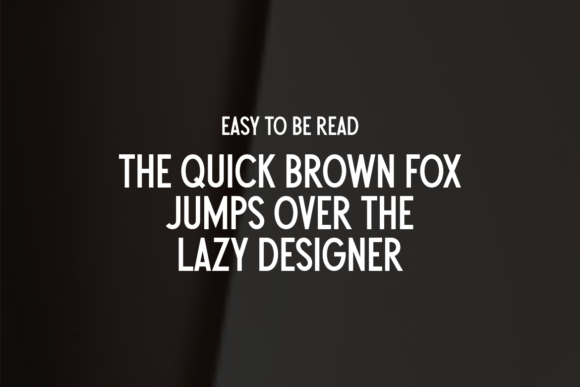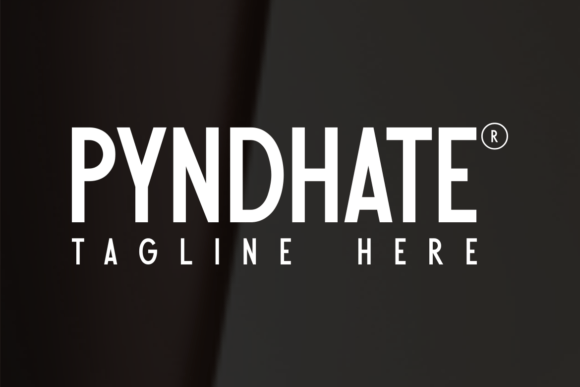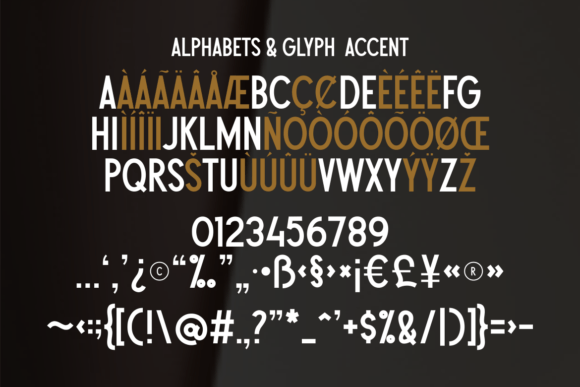
Discover the Timeless Elegance of Dacroghibz Font
Have you ever stared at a blank page, waiting for inspiration to strike? It’s a feeling familiar to many creatives, and it’s where the magic happens. One glance at a beautiful font can spark a design idea, and that’s exactly what happened when I discovered the Dacroghibz Font.
This stunning sans serif font exudes a sense of modernity and sophistication, making it the perfect addition to any design project. Whether you’re creating a book cover, a magazine spread, or a social media post, Dacroghibz Font is sure to elevate your design to the next level. Its minimalist and clean vibe lends itself perfectly to a wide range of applications, from invitations to editorial content.
- Unique Characteristics: Features a unique blend of modern and vintage elements, with intricate details and textures
Dacroghibz Font Review
I’ve had the chance to work with Dacroghibz Font, and I must say it’s an interesting choice for designers looking for a unique aesthetic. ✨ The font’s intricate details and dynamic feel make it perfect for creative projects that require a touch of playfulness. The bold lines and geometric shapes give it a modern, edgy vibe that’s sure to grab attention.
Here are some of the font’s strengths:
- ✨ Unique design that stands out from the crowd
- ✨ Perfect for creative projects that require a bold statement
- ✨ Works well in digital and print formats
- ⚠️ May not be suitable for text-heavy projects, as it can be difficult to read at smaller font sizes
- ⚠️ Limited character set, which may not be ideal for international projects
- ⚠️ May not be compatible with all operating systems or devices
Overall, Dacroghibz Font is a great choice for designers who want to add a touch of personality to their projects. While it may have some limitations, its unique design and modern feel make it a great option for creative projects. With careful consideration and planning, Dacroghibz Font can be a valuable addition to any designer’s toolkit.
Tips for Getting the Most Out of Dacroghibz Font
To get the most out of Dacroghibz Font, use it sparingly for emphasis or to create visual interest. This unique font is best used for headings or titles, rather than large blocks of text.
Dacroghibz Font is ideal for creative projects, such as:
– Headings and titles
– Logos and branding
– Print materials, such as business cards and brochures